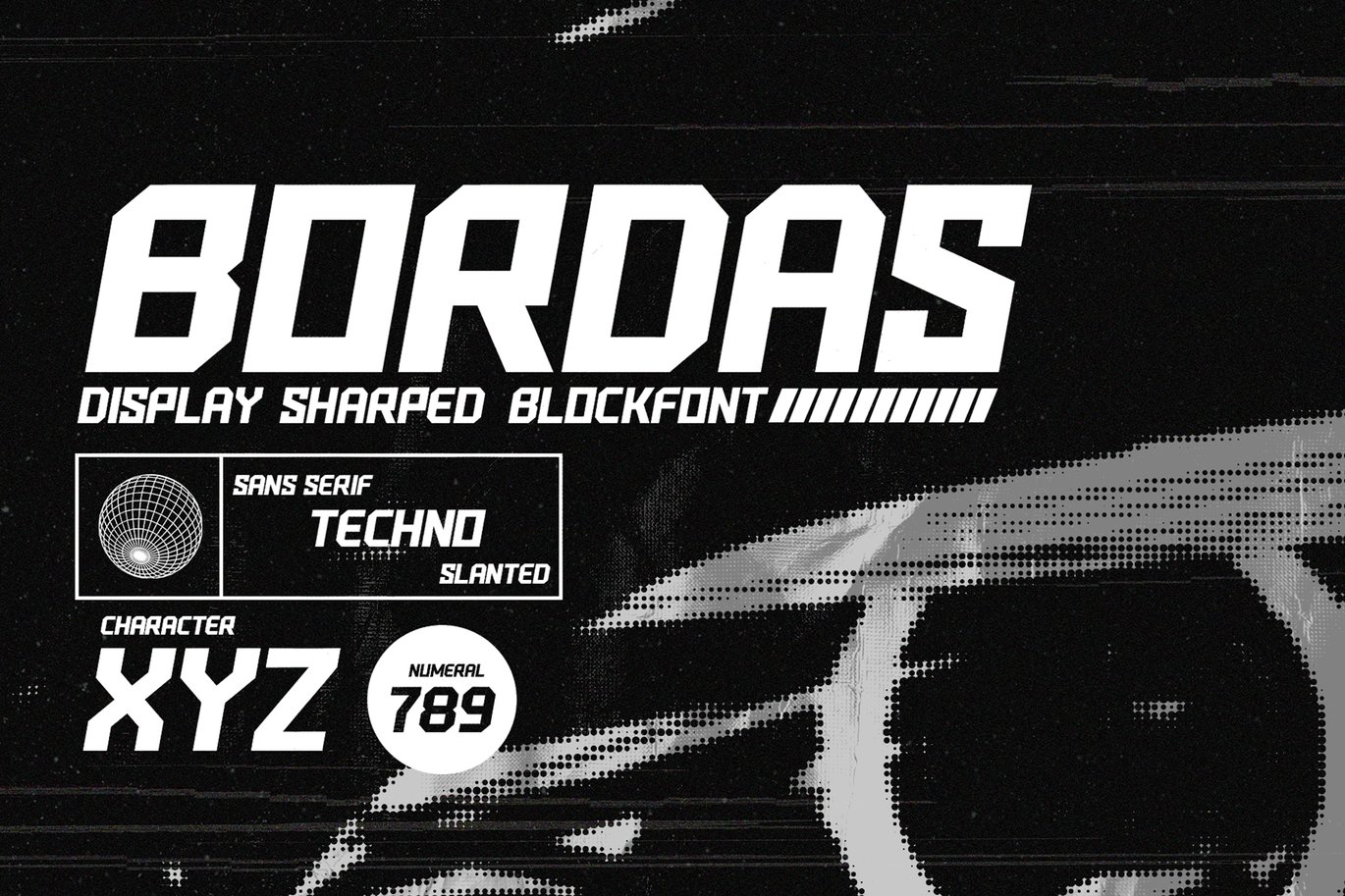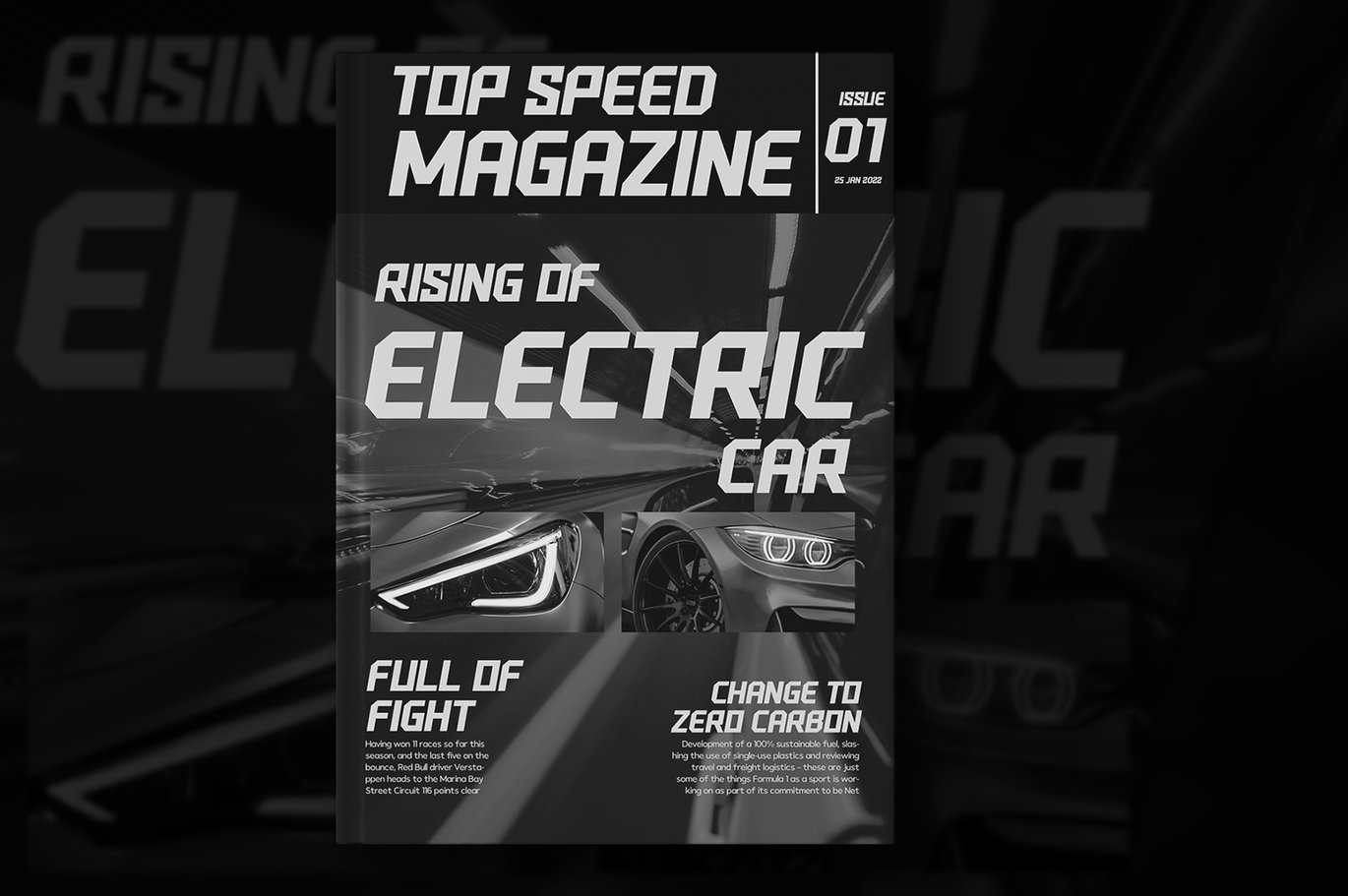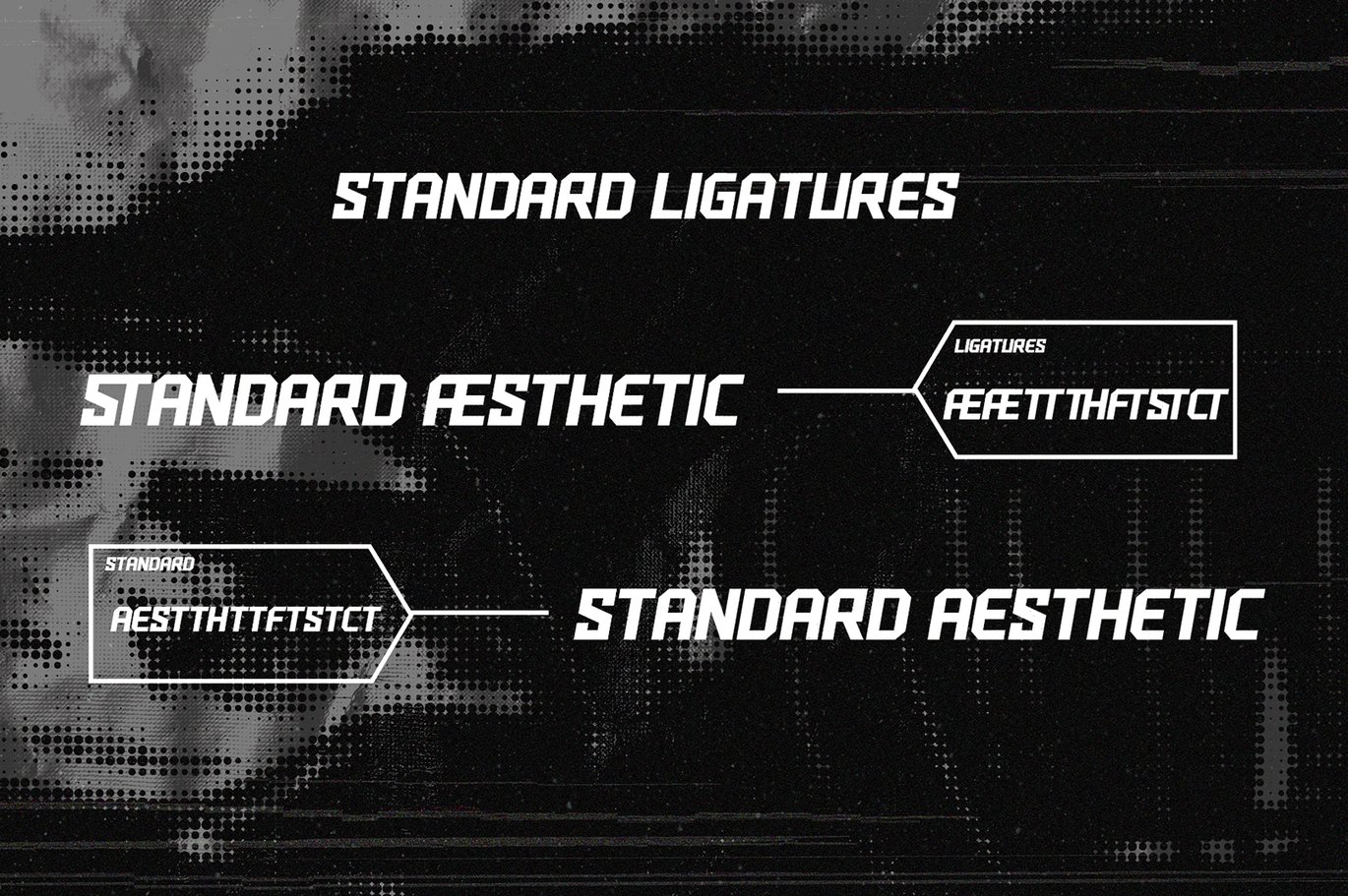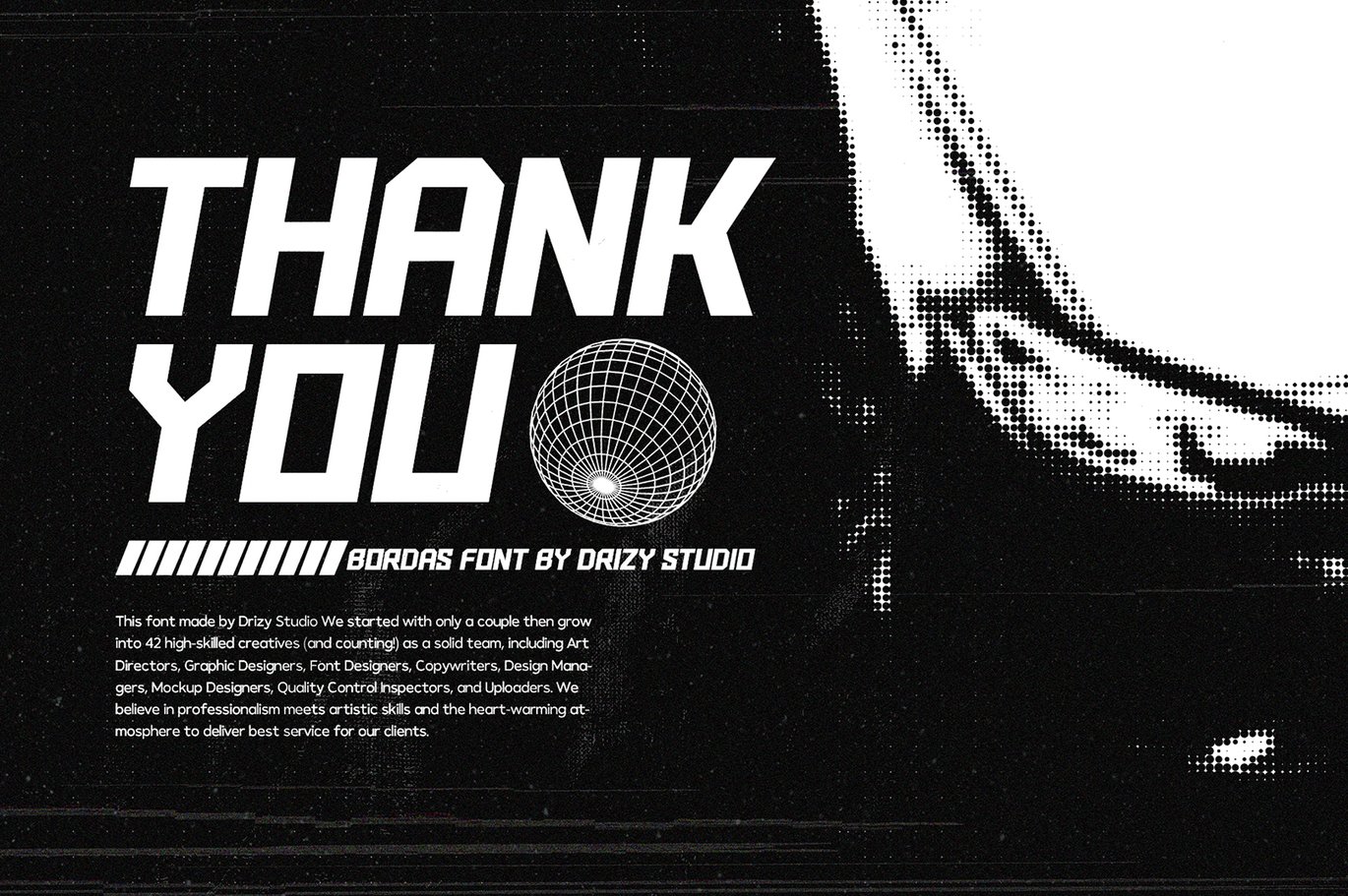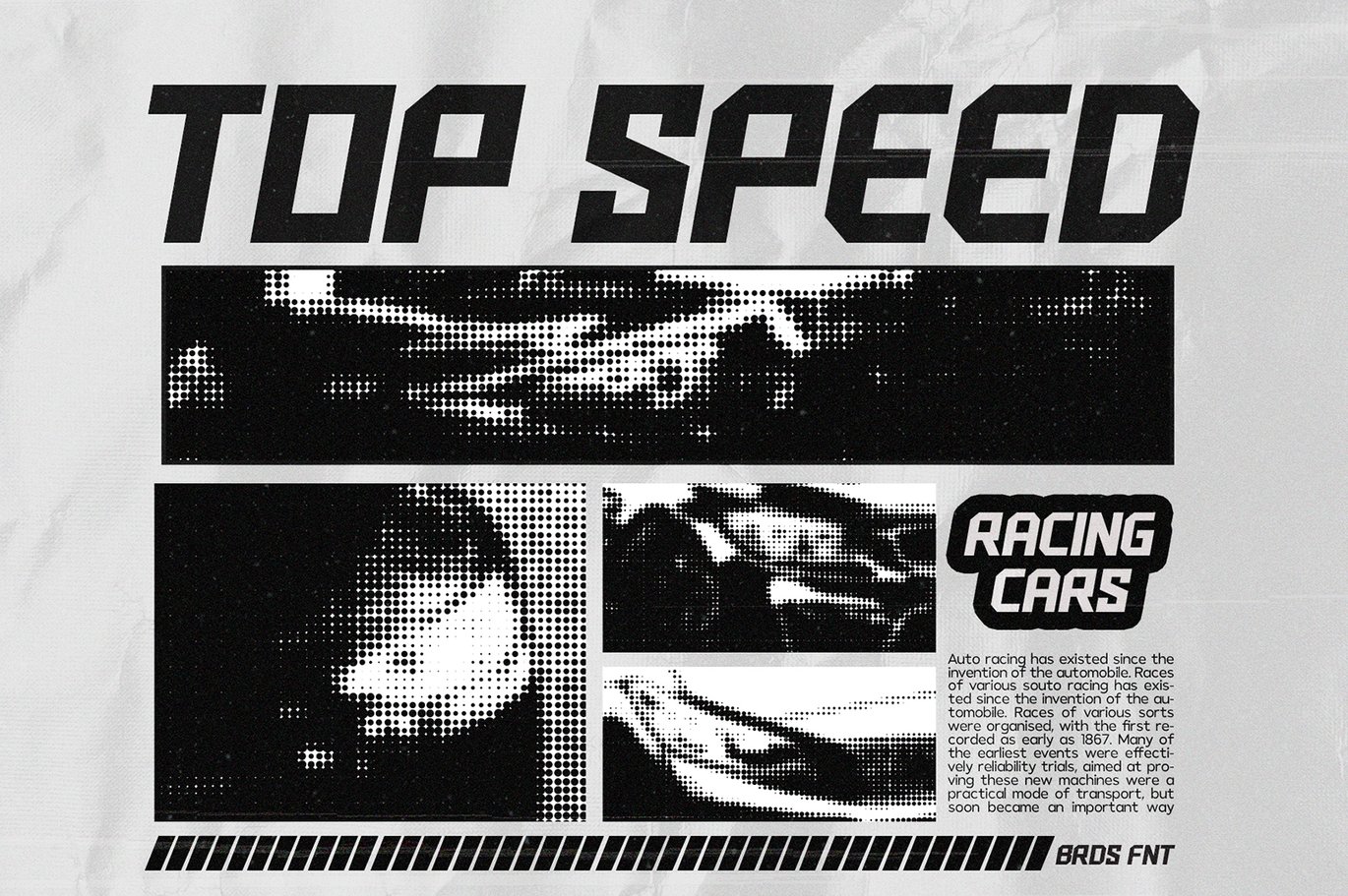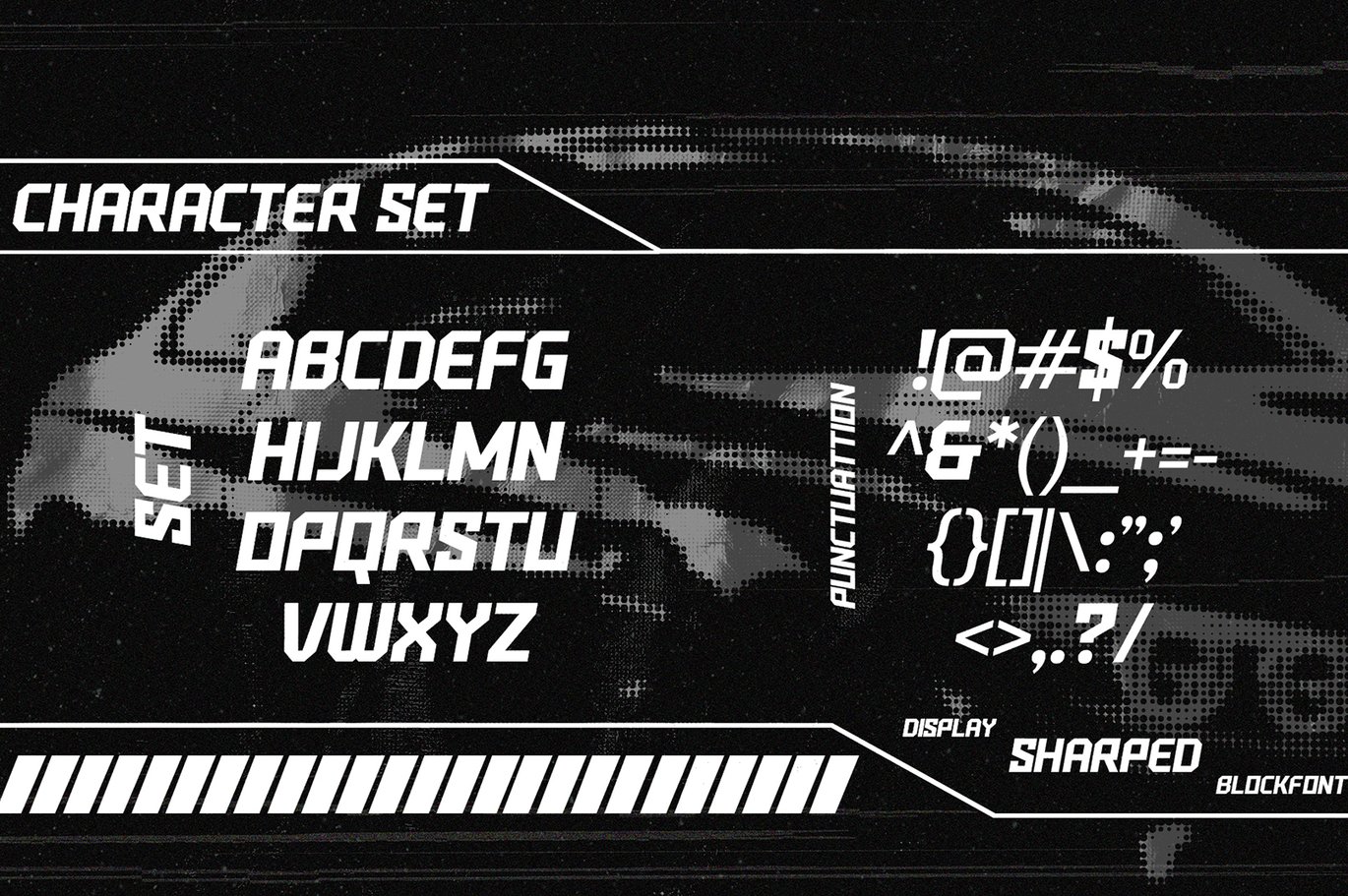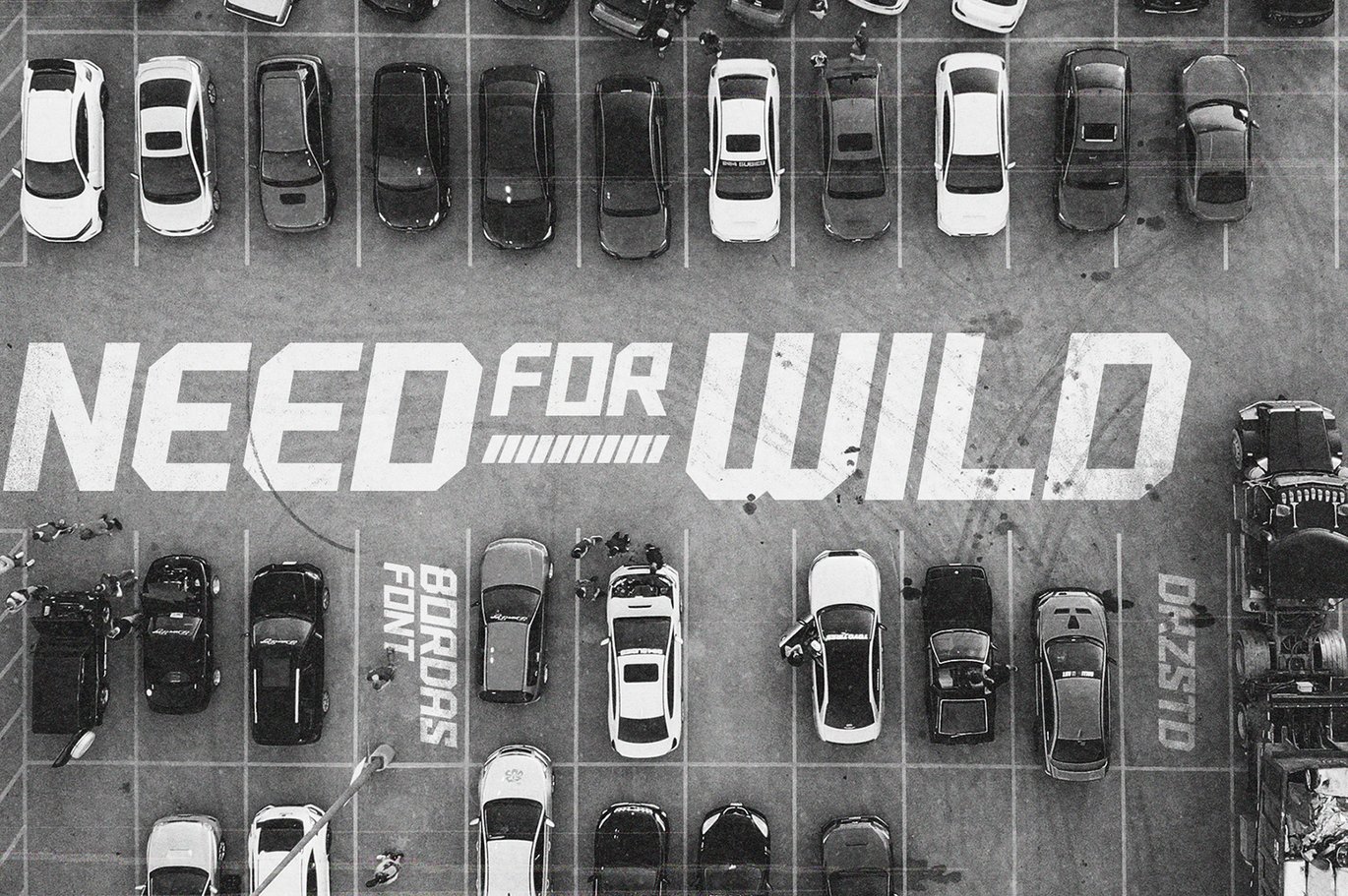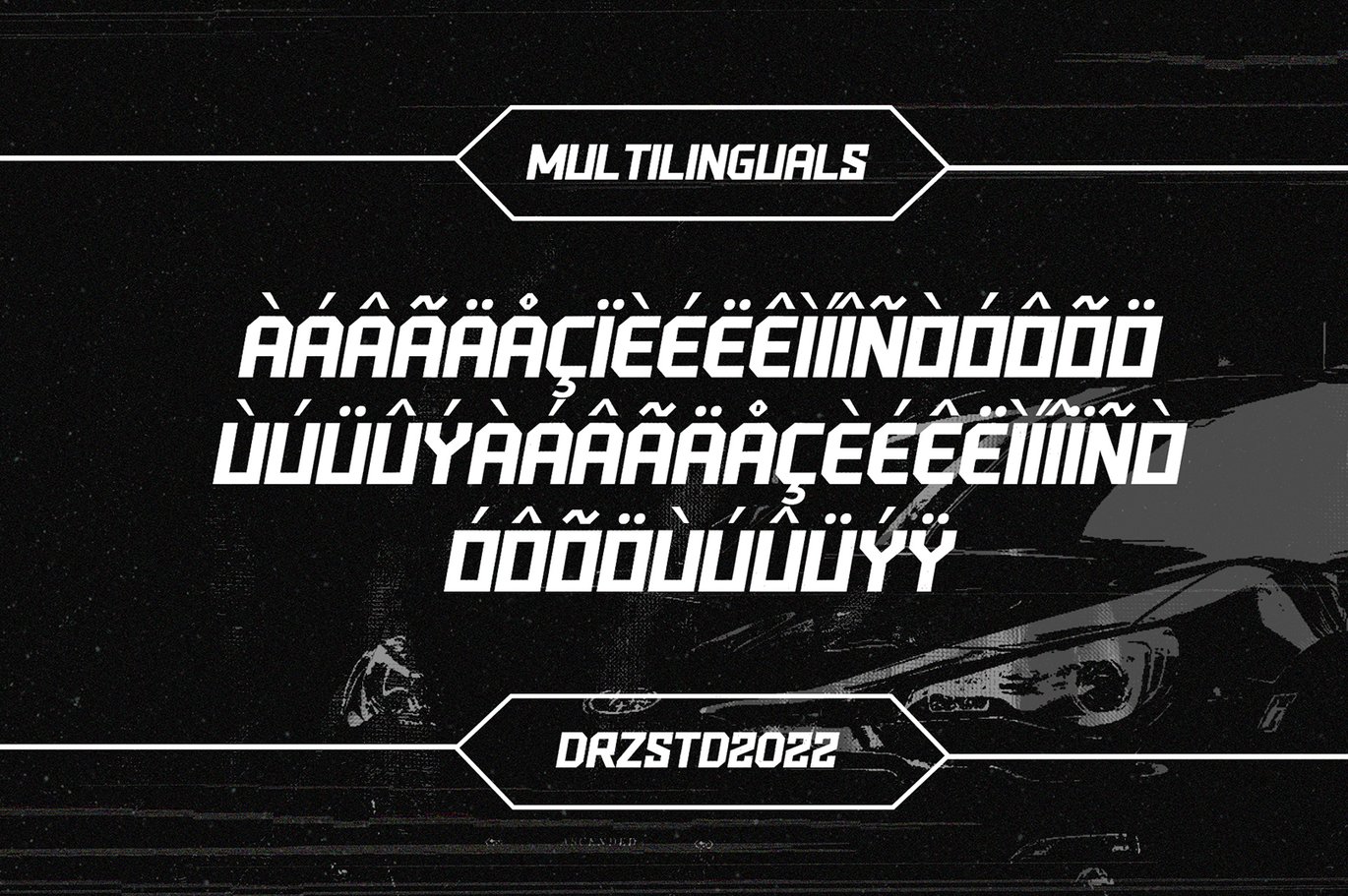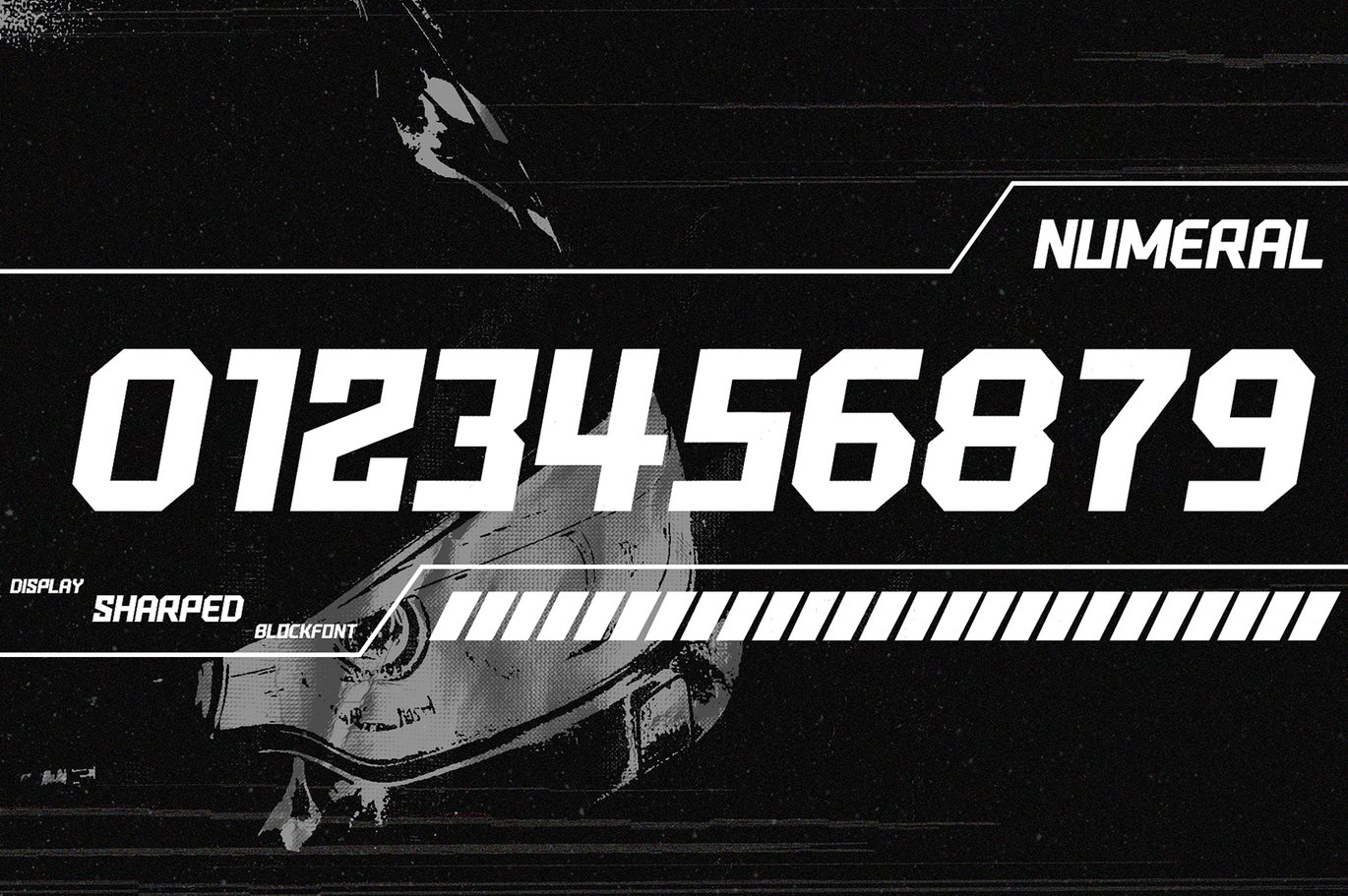
Bordas – Display Sharped Block Font
Bordas is Display Sharped Block Font from Drizy studio. Offering all the basic styles you will need for an industrial and techno theme of your project.
Bordas Features:
Numeral & Punctuation
Multilinguals & Alternates